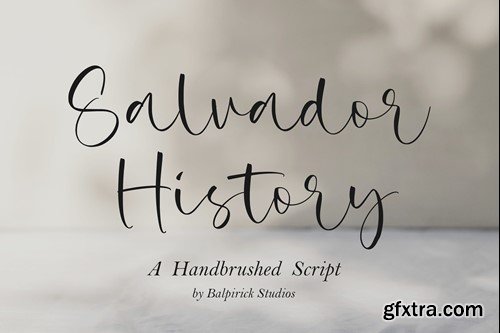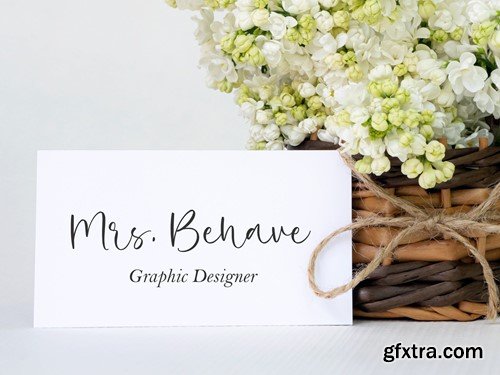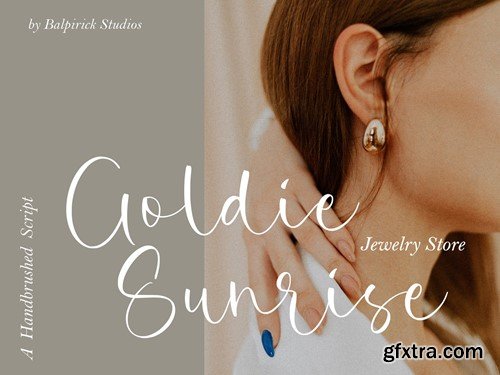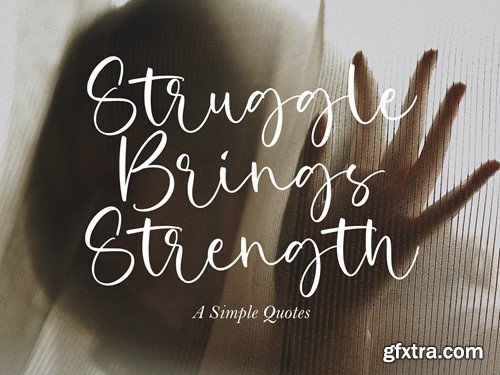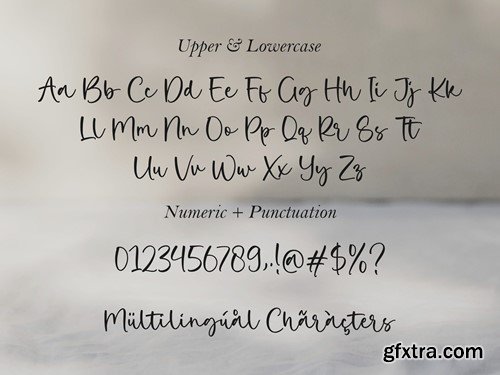
Salvador History Script Font
Introducing by Balpirick Studio. Salvador Script is a Handbrushed Script Font that's perfect for adding touch to your design projects! With its natural, organic feel and unique character. Crafted with care and attention to detail, this font is incredibly versatile and can be used for a range of design projects, including logos, branding, invitations, and more. Its modern, handwritten style gives it a unique character that's sure to make an impact. This font includes Enjoy the font! Feel free to comment or feedback! Thank you!